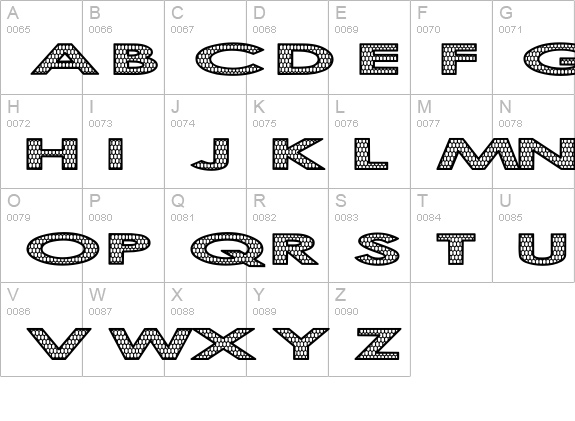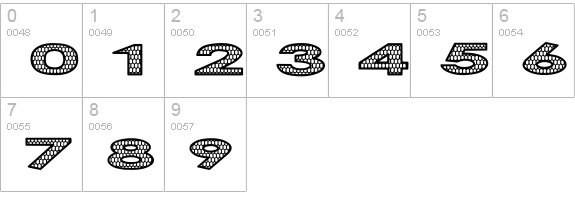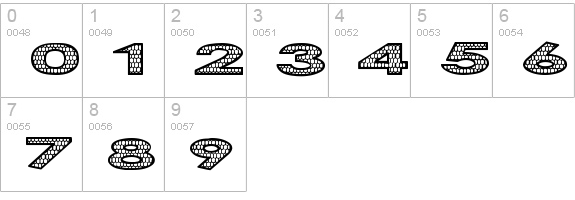
Scaling the Dragon Font Details
Introducing Scaling the Dragon, a captivating font that combines elegance with a touch of mystique. This unique typeface is perfect for adding a touch of sophistication to your design projects, whether it be logos, branding, invitations, or more. Each letter is meticulously crafted with intricate details, inspired by the majestic curves and scales of the legendary dragon. Scaling the Dragon font exudes a sense of power and grace, making it an ideal choice for those looking to make a bold statement. Its fluid strokes and sharp edges create a harmonious balance, captivating the eye and leaving a lasting impression on any viewer. What sets Scaling the Dragon apart is not only its stunning aesthetic but also its accessibility. We believe that creativity should be free, which is why we are thrilled to offer Scaling the Dragon as a freely available font to download at FontsMarket.com. Now, you can effortlessly elevate your designs without any limitations or restrictions. Whether you are a professional designer, a creative enthusiast, or a curious explorer of the typographic world, Scaling the Dragon font invites you to unleash your imagination and embark on a journey of limitless possibilities. With its versatility and timeless appeal, this font will undoubtedly become a cherished addition to your font library. Download Scaling the Dragon font at FontsMarket.com today and unlock a world of boundless creativity. Let this mythical font breathe life into your designs and transport your audience into a realm where beauty and power coexist harmoniously. Embrace the power of Scaling the Dragon and let your imagination soar to new heights.